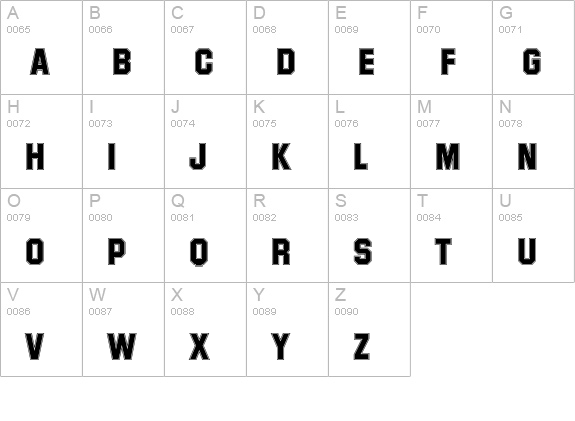
SuperstarEF-Regular Font Details
SuperstarEF-Regular is the standard, neutral variant in the SuperstarEF typeface family \xE2\x80\x94 well suited to general body text, paragraphs, and standard typographic work.
SuperstarEF-Regular is a stylish and versatile font that exudes elegance and modernity. With its sleek lines and bold presence, this font is perfect for making a statement in any design project. Whether you're creating a logo, poster, or website, SuperstarEF-Regular will surely catch the eye of your audience. The best part? SuperstarEF-Regular is available for free download at FontsMarket.com. This means you can easily access this amazing font and use it in your projects without any cost. Don't miss out on this opportunity to elevate your designs with the stunning SuperstarEF-Regular font. Download it now and start creating visually appealing and impactful designs!